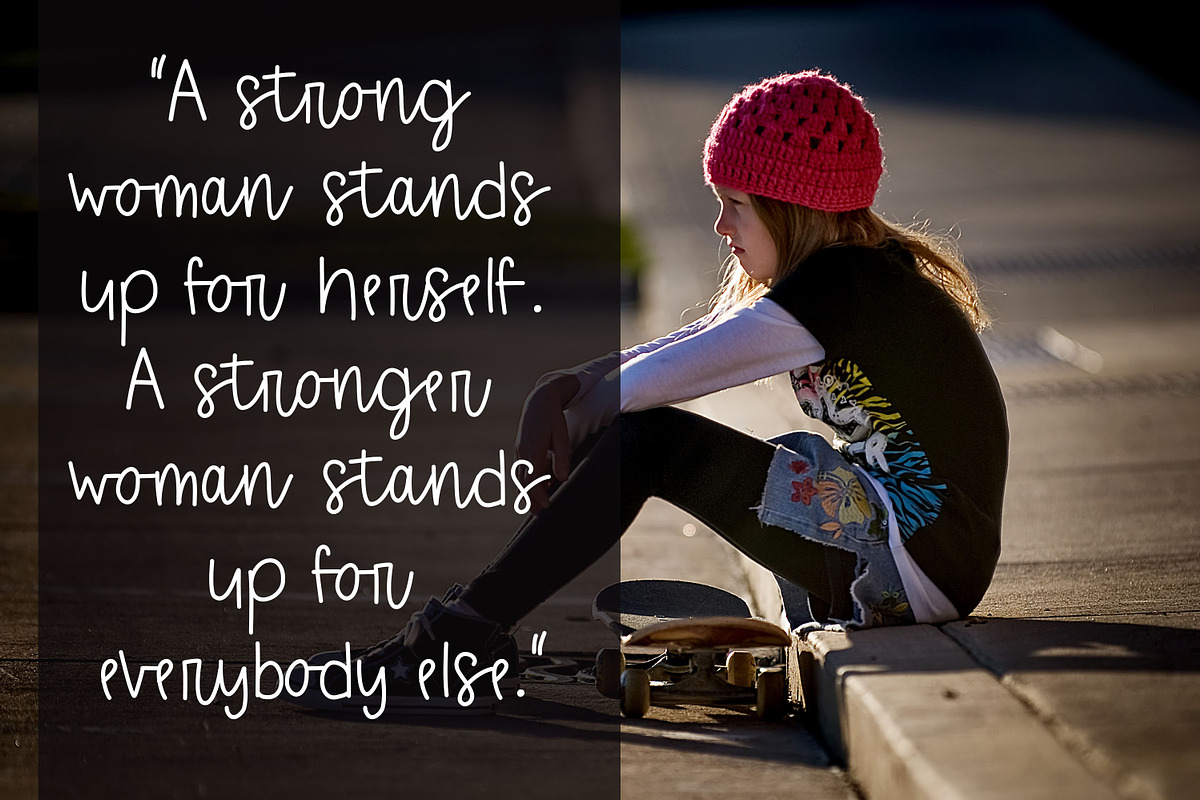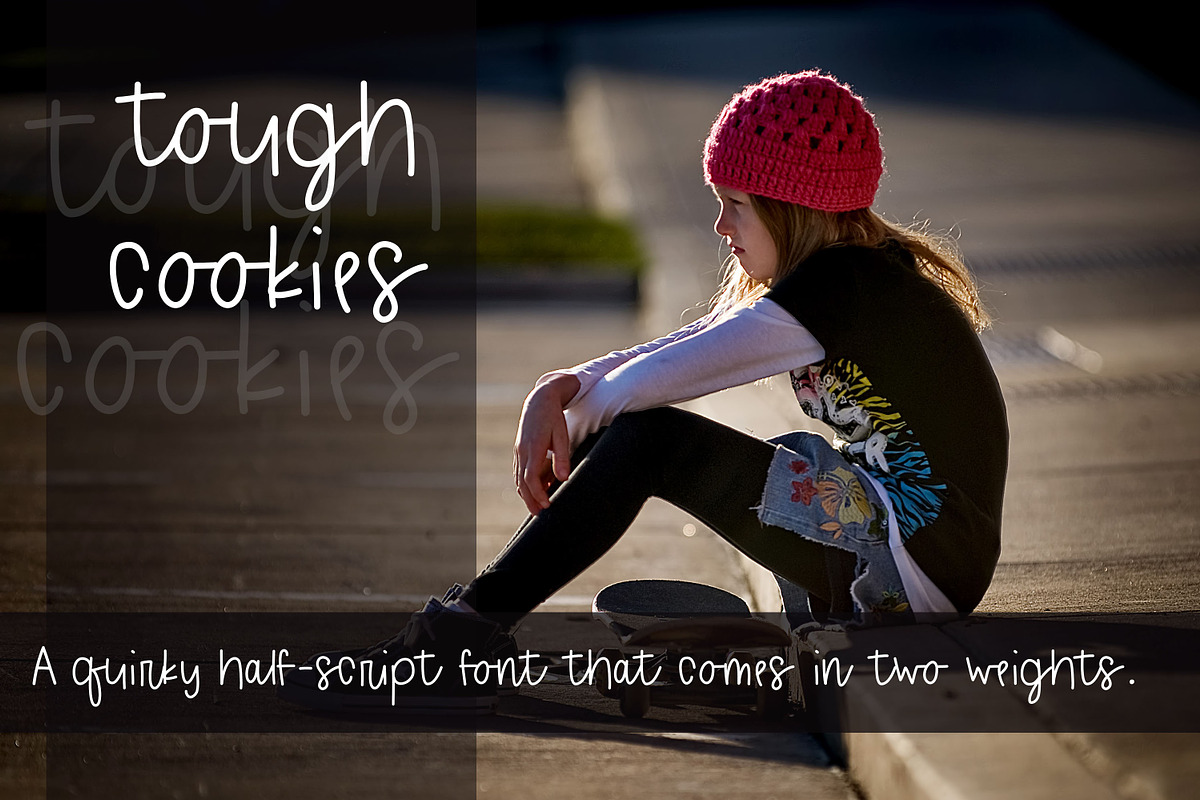
Tough Cookies | A young half-script
Tough Cookies is a quirky half-script font that comes in two weights. This font features script letters and sans-serif letters. This font is perfect for an assortment of things and pairs very well with others (especially script fonts!). This font has two weights: Bold and Regular, and you can use this font for all sorts of things, including: